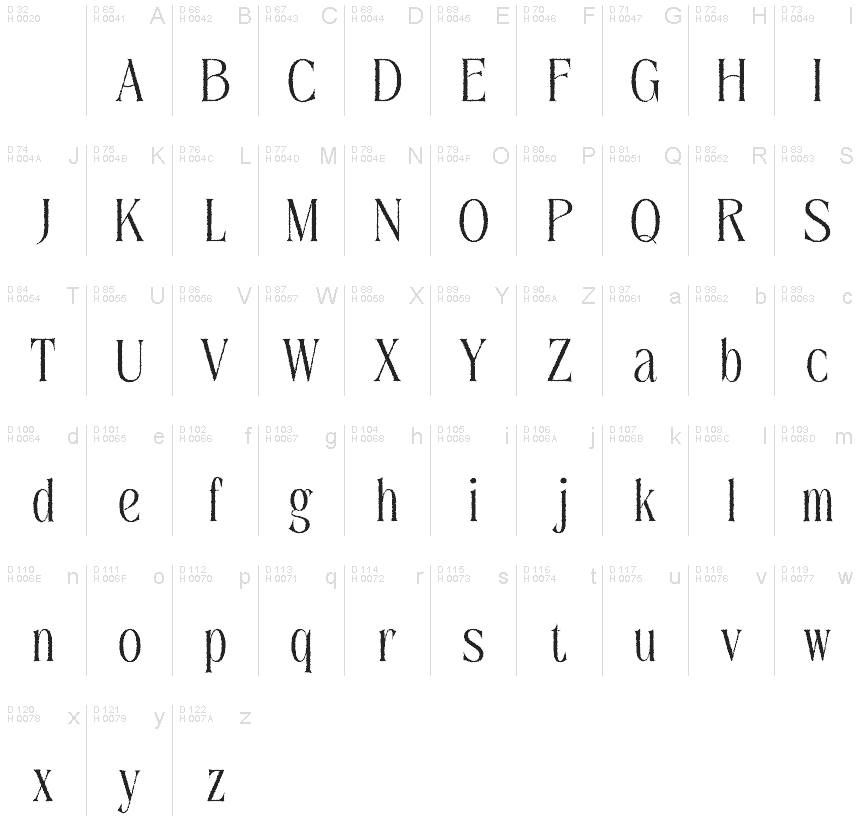
Revenika Rough Demo Regular
Revenika Rough display font by Craft Supply Co is a rugged beauty with its textured surface, evoking a rustic and weathered appearance. Its traditional vibe marries well with the condensed silhouette of this serif typeface for a striking combination with an artistic edge. All these features give Revenika Rough fonts and designs sleeker versatility.
This free handcrafted font is perfect for apparel design and branding, product packaging, magazines, banners, posters, advertising campaigns, photography overlays, marketing material development etc. The presence of visible lines within each character adds depth to your projects which can include other uses like social media imagery or websites.